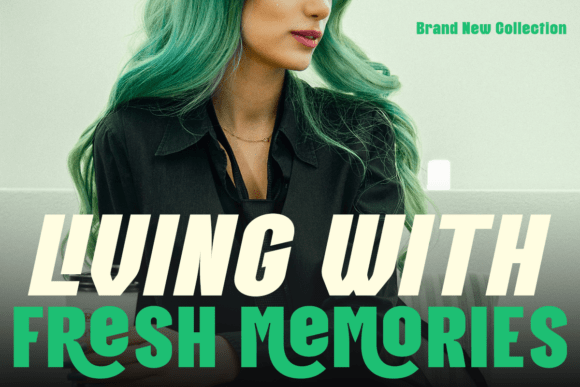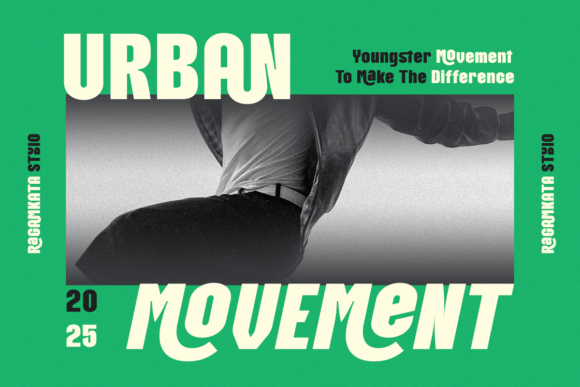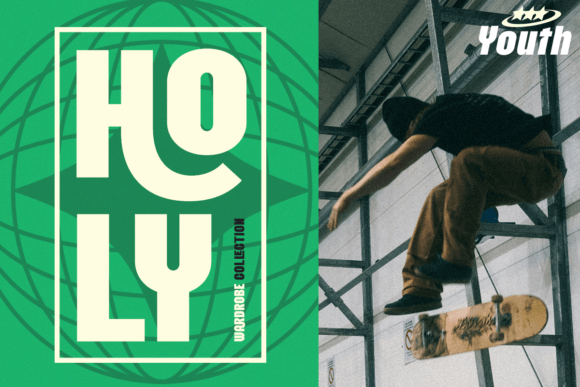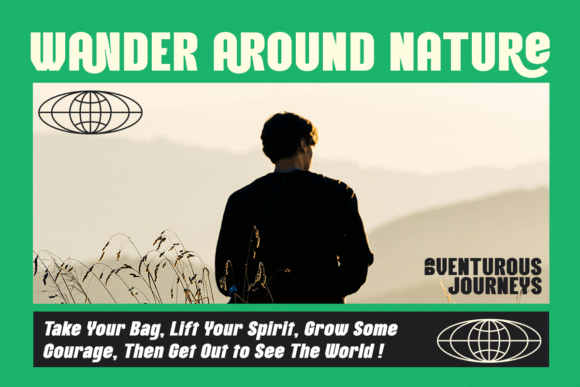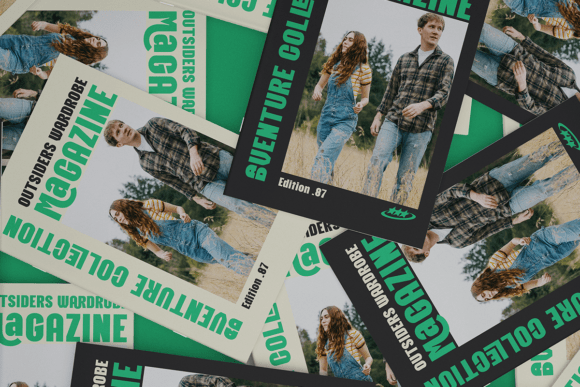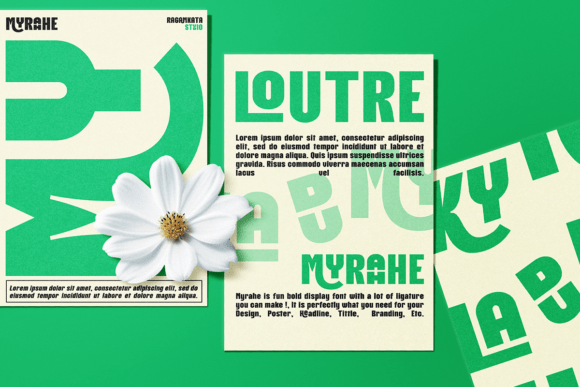
Introduction to Myrahe Font
Myrahe is a powerfully bold and condensed sans-serif font designed for maximum impact, immediately conveying strength, modernity, and a no-nonsense attitude.
| 👤 Author | RagamKata Studio |
This robust Myrahe typeface features incredibly heavy weights and tight letter-spacing, making it the perfect tool for shouting headlines and attention-grabbing posters, particularly in urban, architectural, and sportswear contexts Its geometric, slightly blocky construction, with subtle modular elements and unique cuts in certain glyphs (like the ‘R’ and ‘A’), adds a distinctive, engineered look.